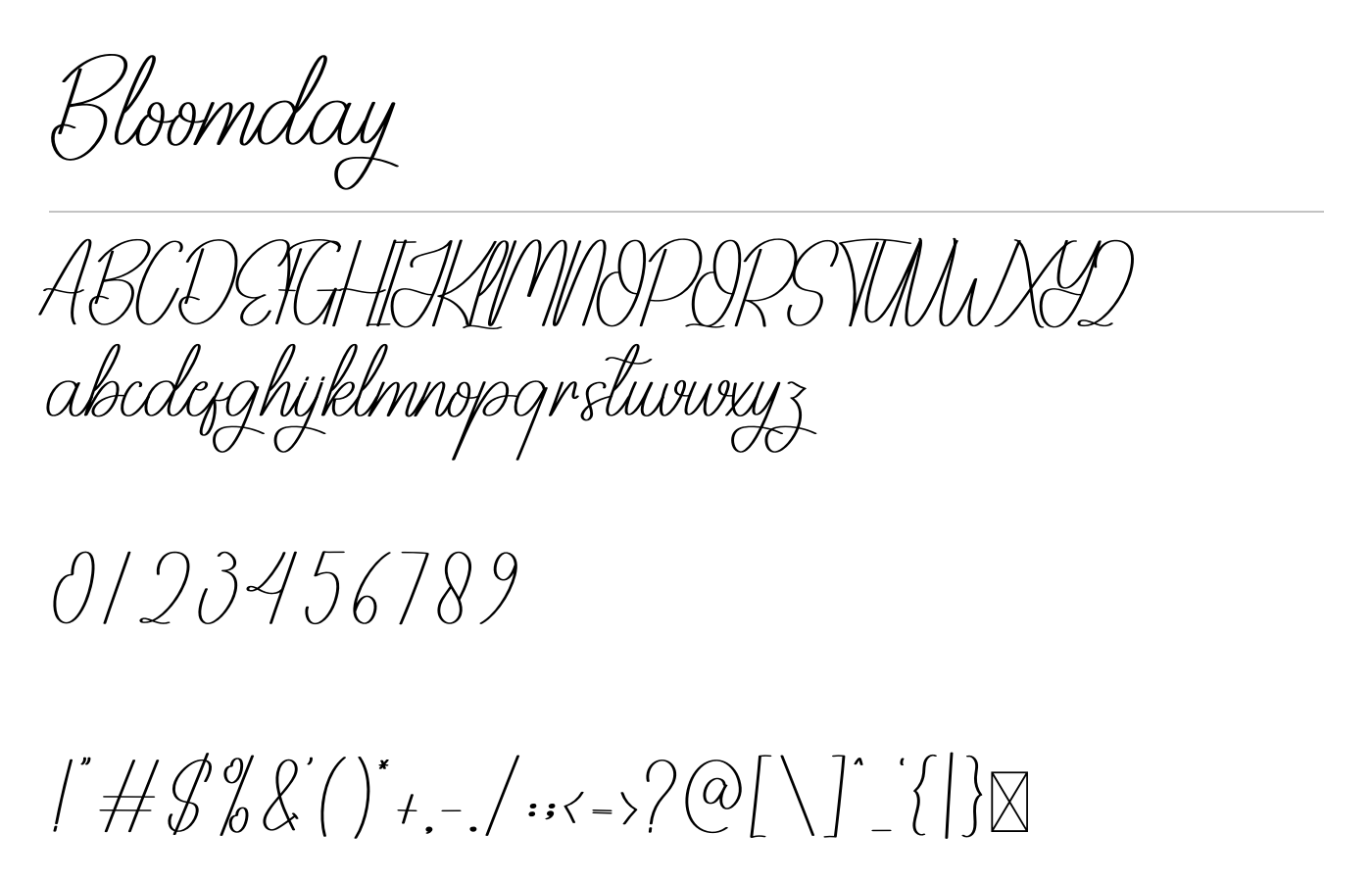
Bloomday is an elegant, slender script font with a delicate, handwritten style that features graceful, flowing letterforms and fine, consistent strokes. Its tall, narrow characters and smooth curves convey a sophisticated and personal touch, making it ideal for branding, invitations, and stylish editorial designs that seek a refined yet approachable aesthetic. This font's airy and graceful appearance lends itself beautifully to projects that require a sense of elegance and subtle charm.
Bloomday Font
About Bloomday Font